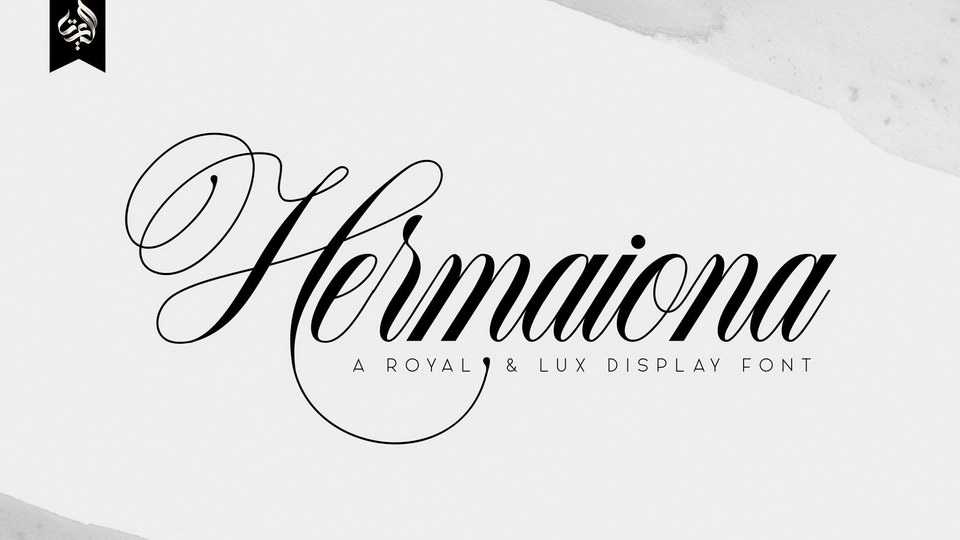
Download Hermaiona font, a gorgeous royal script, carefully crafted and inspired by luxury fashion in the world. Hermaiona creates a luxurious, rich, exclusive and elegant look in design.
Designer: Aluyeah Studio